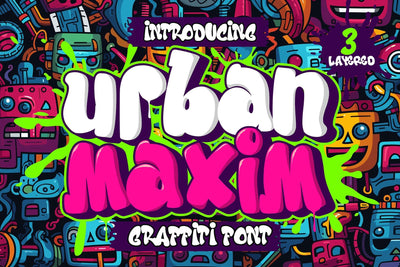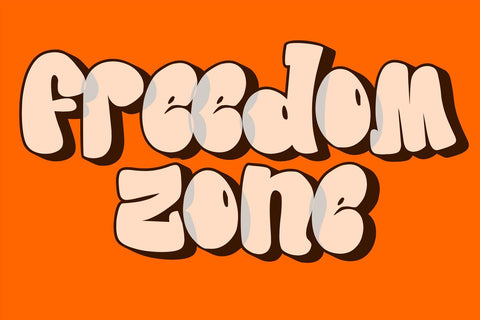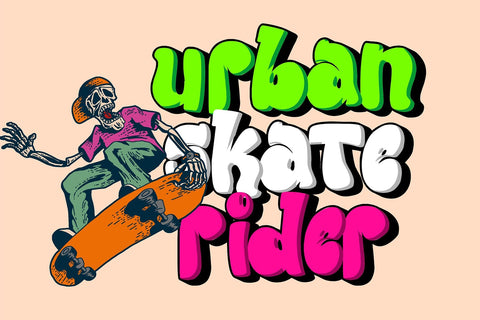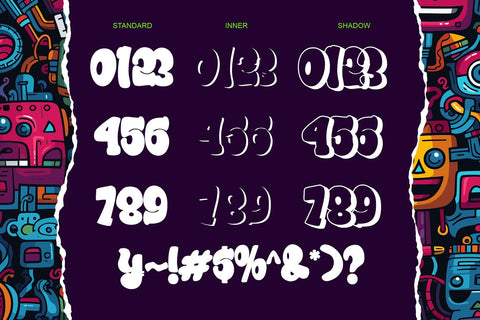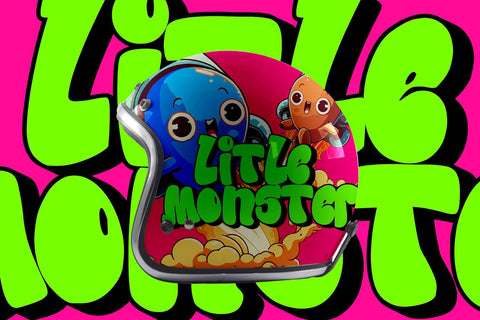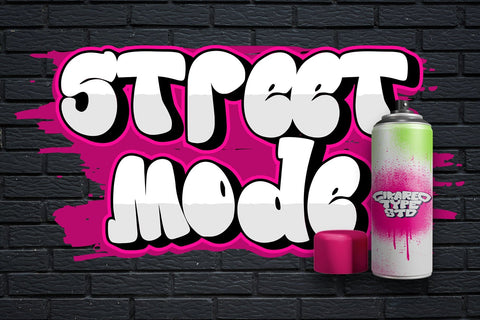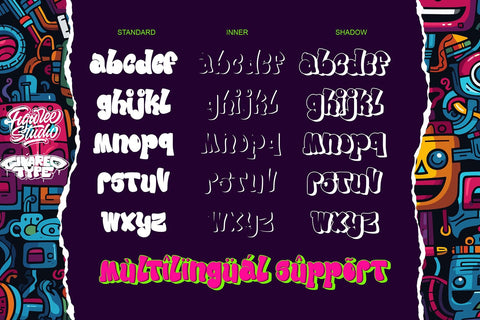
Urban Maxim - 3d Layered Graffiti Font
"Urban Maxim" is a graffiti font that features three different layers: solid, shadow, and inner shadow. By using this combination of layers in your design, you can create a three-dimensional (3D) effect on your text. Fonts like this are often used in street art, posters, or other designs that aim to add depth and dimension to their typography.
- Graffiti Characters looks